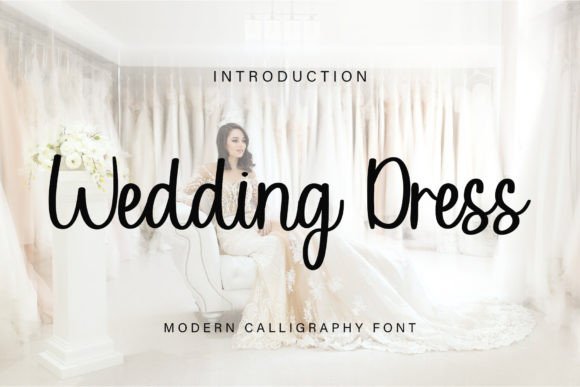
Imagine a font that captures the essence of a romantic wedding, exuding elegance and charm in every letterform. Introducing "Wedding Dress Font" - a script font family designed to sweep you off your feet. With its delicate curves, whimsical swashes, and a touch of playfulness, this font is a dream come true for any creative seeking an unforgettable visual experience.
"Wedding Dress Font" is more than just a font; it's an artistic expression of love and happiness. Let your designs dance with a touch of romance, whether crafting wedding invitations, creating social media posts, or designing marketing materials. This font is an absolute charmer, inviting your audience to immerse themselves in an enchanting realm of beauty.
Whether you're a graphic designer, a social media enthusiast, or simply someone who appreciates the art of beautiful typography, "Wedding Dress Font" is your perfect match. Its versatility knows no bounds, allowing you to unleash your creativity across a wide range of projects. Make a lasting impression, evoke emotions, and create designs that resonate with your audience's hearts.
Don't settle for ordinary fonts; embrace the extraordinary with "Wedding Dress Font." Step into a world where words come alive and stories unfold with each letter. Let your designs exude elegance, charm, and timeless beauty. Download "Wedding Dress Font" today and embark on a creative journey that will leave you spellbound.